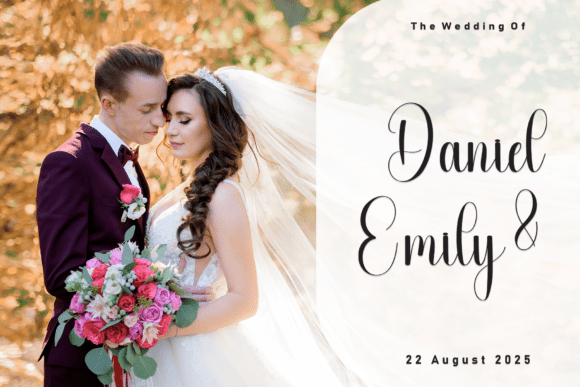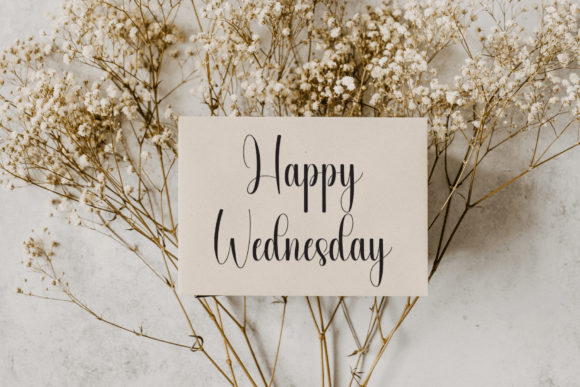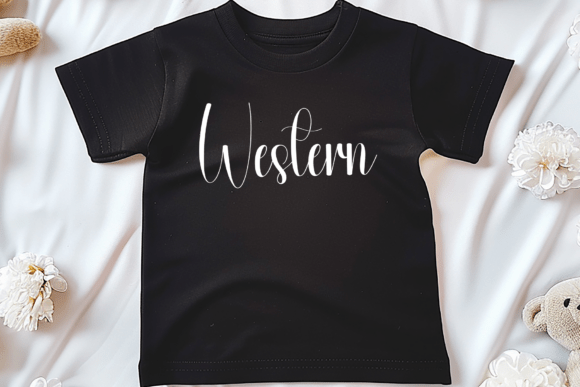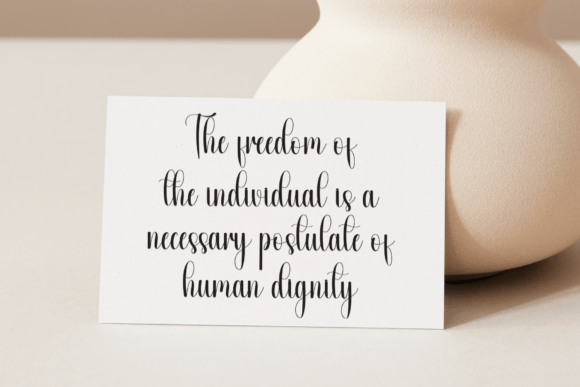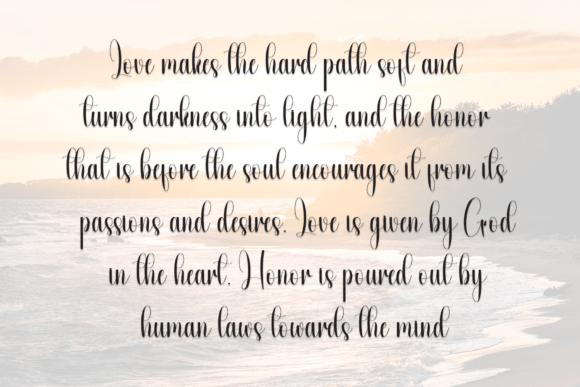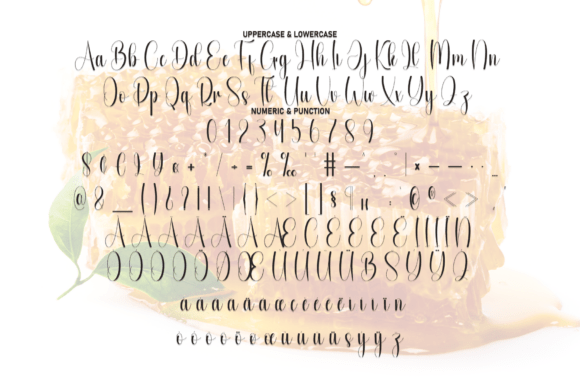
The Sweet Spot for Designers: Unveiling Honey Font
Have you ever found yourself stuck in a design rut, searching for the perfect font to elevate your project? You’re not alone. We’ve all been there, pouring over font libraries and typography trends, hoping to strike gold. But what if we told you that the perfect font is hiding in plain sight? Meet Honey Font, a stylish script font that’s about to become your new go-to for all things elegant and contemporary.
This gorgeous font is more than just a pretty face – it’s a game-changer for designers. With its fluid curves and carefully crafted letterforms, Honey Font adds a refined and sophisticated touch to any design. Whether you’re working on a logo, invitation, or social media graphic, this font is sure to deliver both versatility and visual appeal.
Honey Font Key Features
• Unique Characteristics: Honey Font features a unique blend of modern and vintage elements, with a distinctive script and serif style that adds a touch of elegance to any design.
Honey Font Review
Overall, I think Honey Font has some great qualities, but also some areas where it falls short.
• Unique and playful design: Honey Font has a distinctive, handwritten feel that’s perfect for creating a friendly and approachable atmosphere.
• Good legibility: Despite its script-like appearance, the font is still easy to read, especially at larger sizes.
• Versatile: Honey Font comes in a range of weights and styles, making it suitable for a variety of design projects, from branding to digital content.
• Limited functionality: As a script font, Honey Font is best suited for display purposes, and may not be the best choice for body text or complex layouts.
• Potential for overuse: The font’s playful nature may lead designers to overuse it, which could result in a lack of visual hierarchy and cohesion in a design.
Overall, I think Honey Font is a solid choice for designers looking to add a touch of whimsy to their projects. While it may not be the most versatile font, its unique design and good legibility make it a great option for display purposes. With careful use and consideration, Honey Font can add a lot of visual interest to a design.
Tips for getting the most out of Honey Font in Canva: Use it for social media graphics, blog posts, and marketing materials to add a touch of elegance and sophistication.
Tips for getting the most out of Honey Font in Adobe Photoshop or Illustrator: Use it for high-end branding materials, such as business cards, brochures, and posters.
Tips for getting the most out of Honey Font in PowerPoint or Word: Use it for presentations, reports, and documents to add a touch of professionalism and sophistication.
Honey Font is ideal for:
• Branding and marketing materials
• Business documents and presentations
• Social media graphics and blog posts
• High-end printing materials, such as business cards and brochures
Alternatives to Honey Font for Designers
Lato is a clean and modern sans-serif font, ideal for body text and headings. It has a similar feel to Honey Font but is more versatile and comes in a wider range of weights. Use Lato for digital products, websites, and applications where a clean and neutral aesthetic is desired.
Montserrat is a geometric sans-serif font with a strong urban feel. It’s a great choice for headings and titles, but also works well for body text. Unlike Honey Font, Montserrat has a more condensed and modern feel, making it perfect for digital signage, advertising, and urban design projects.